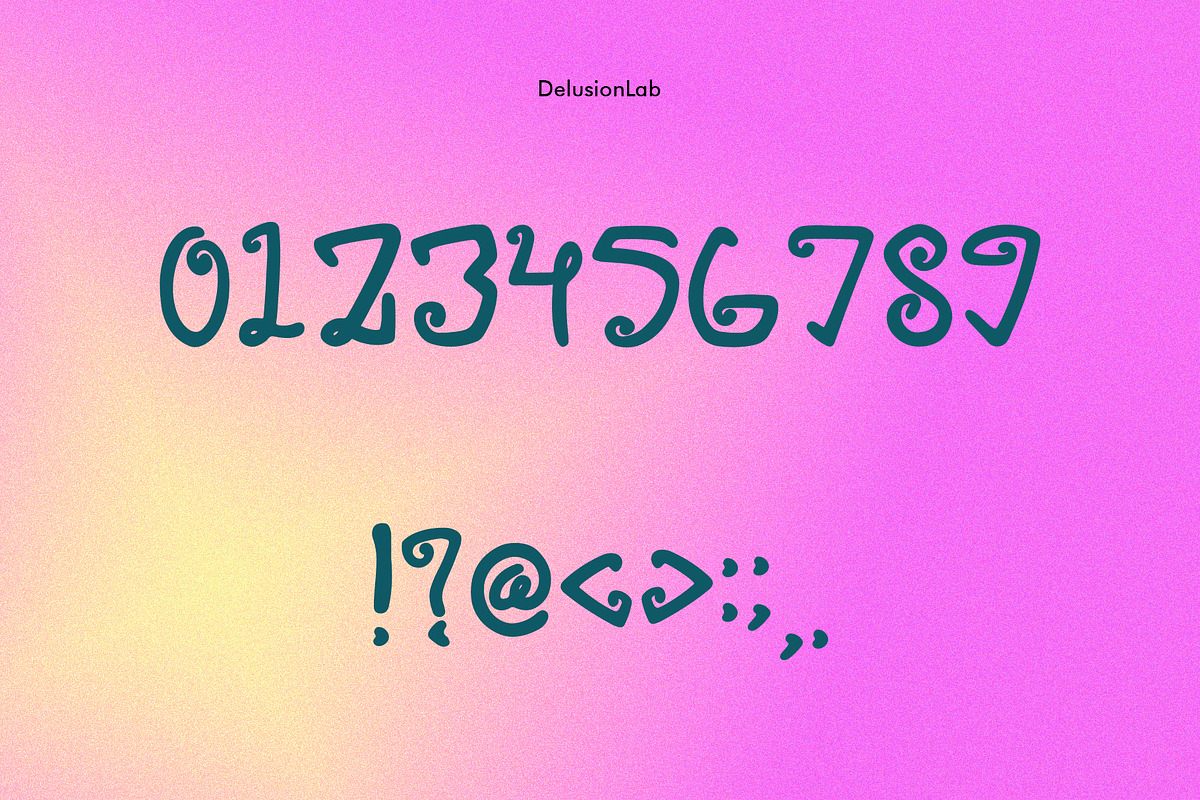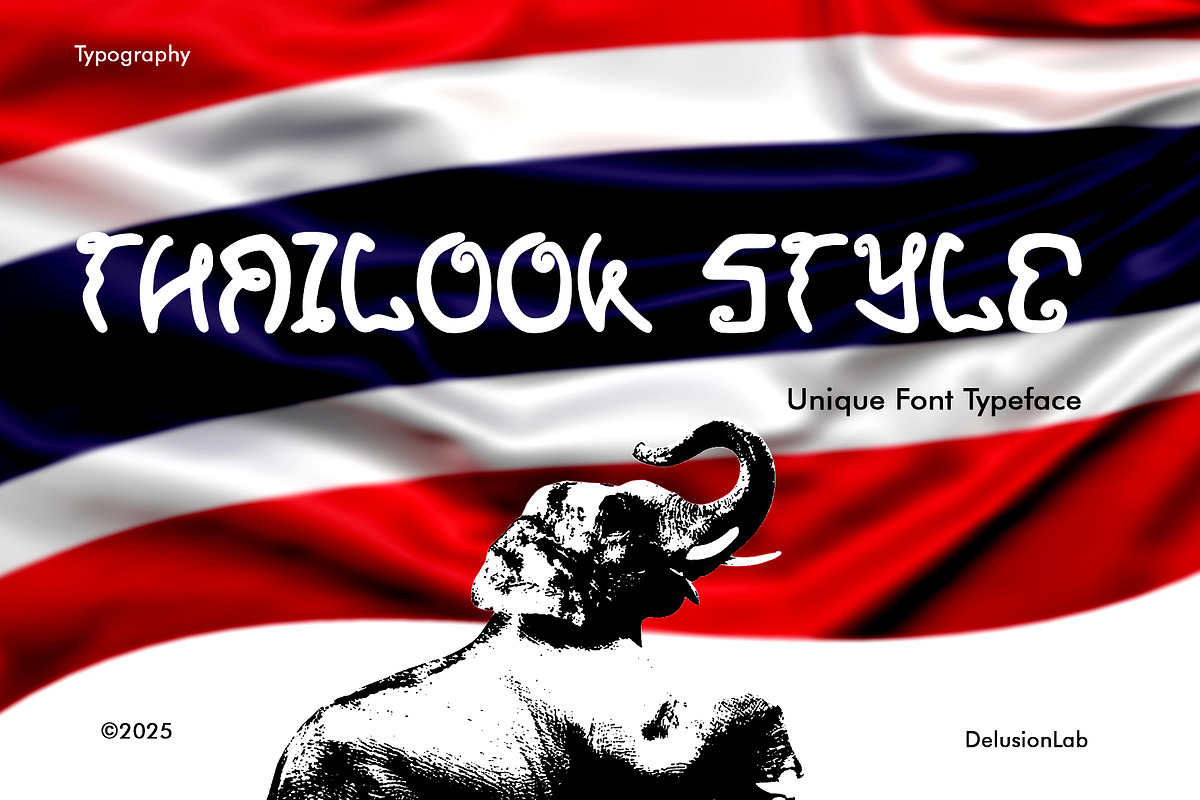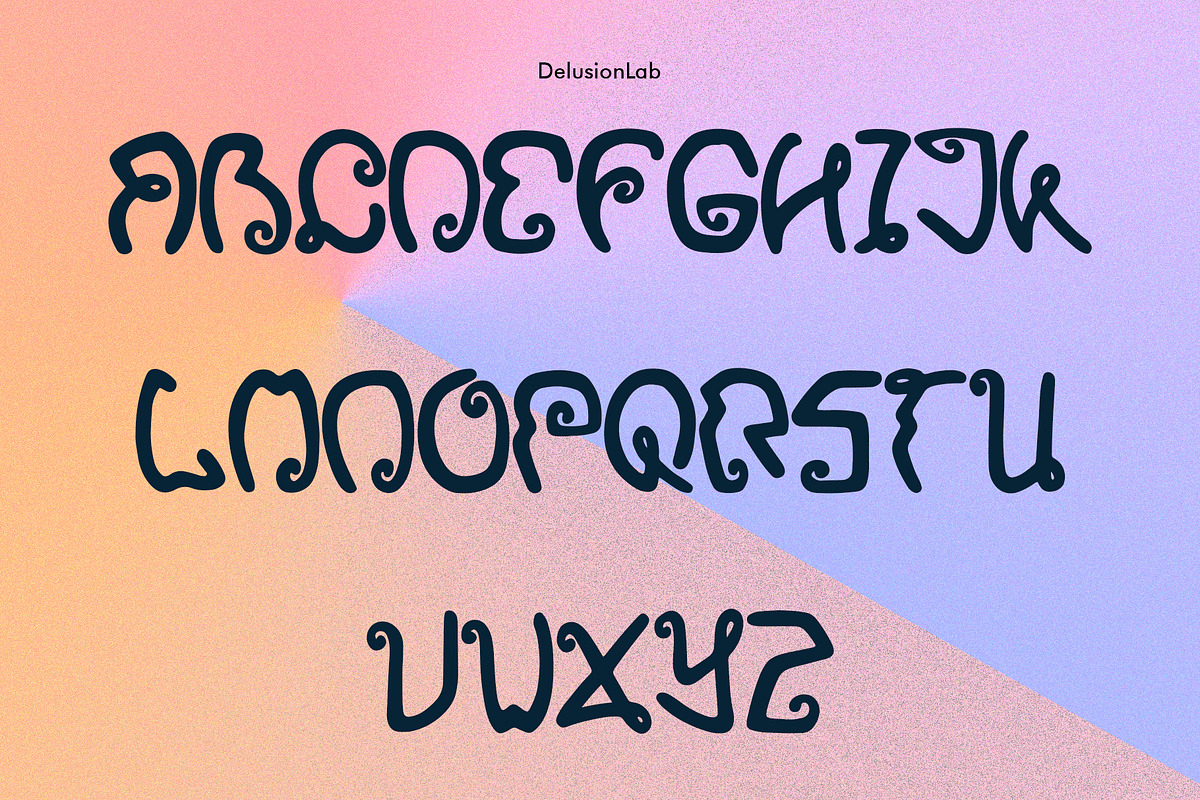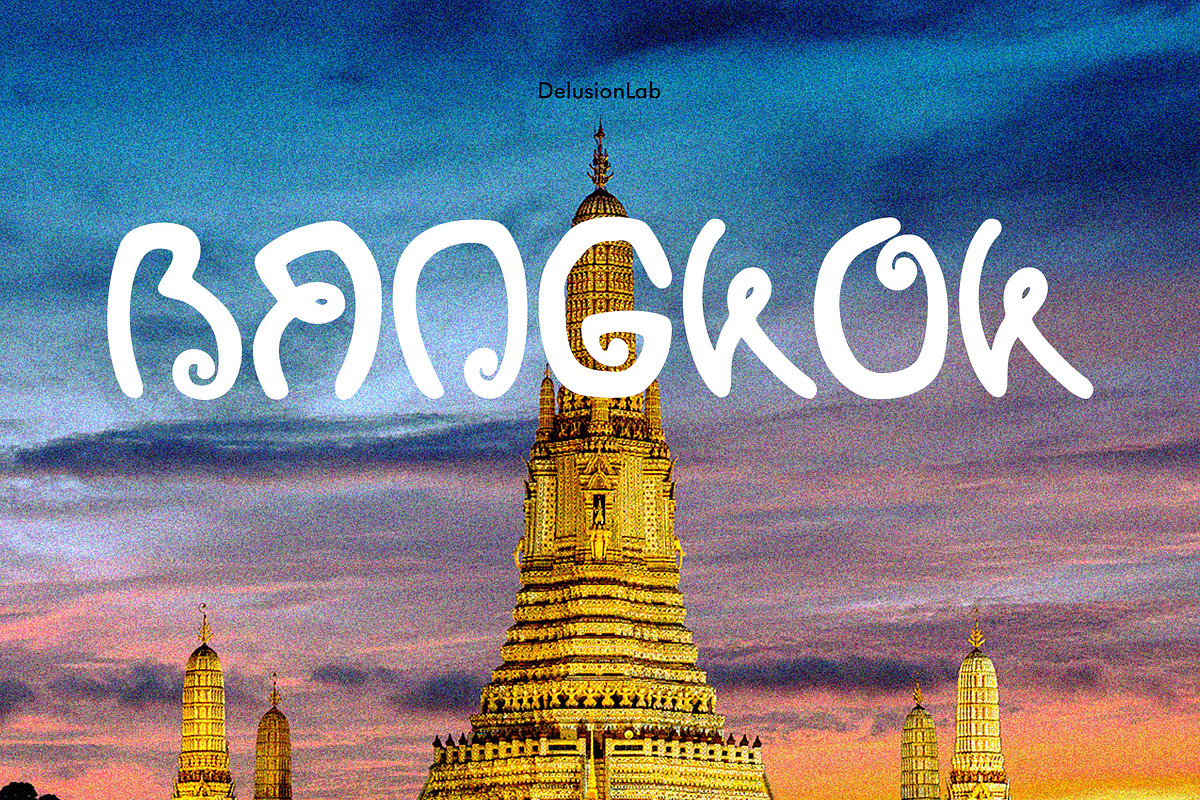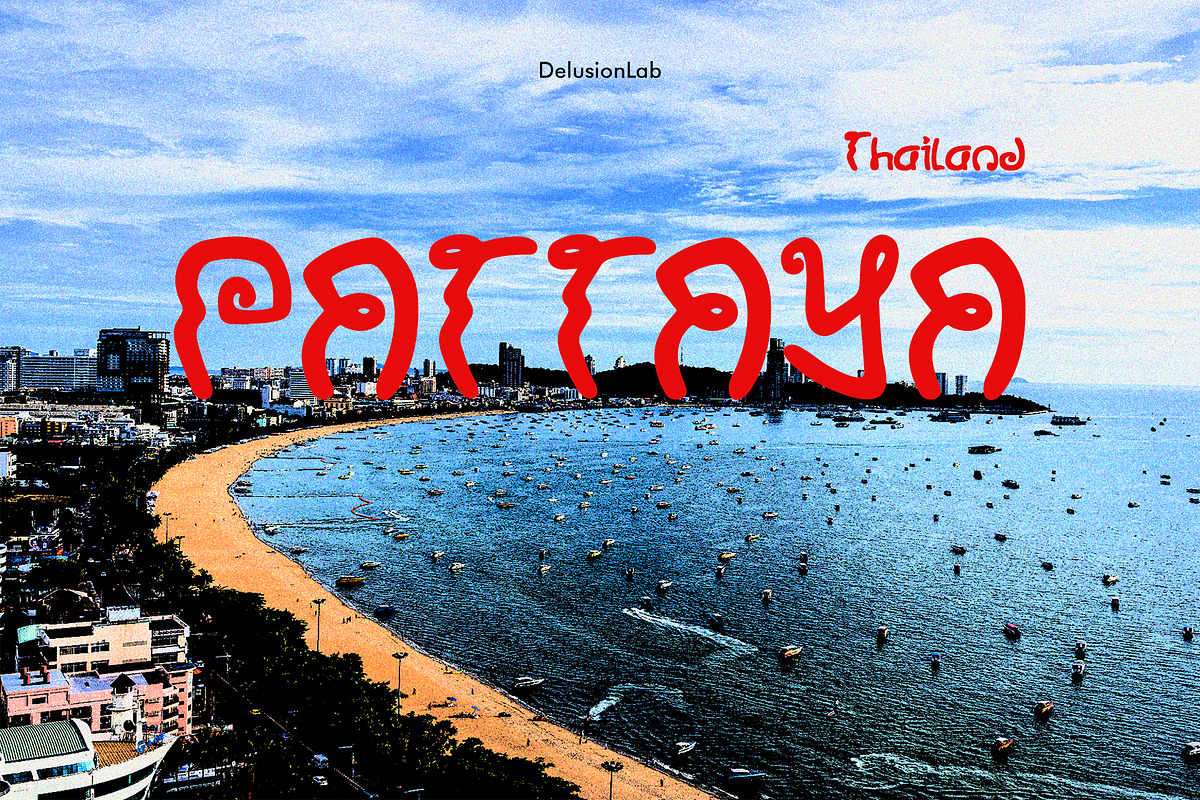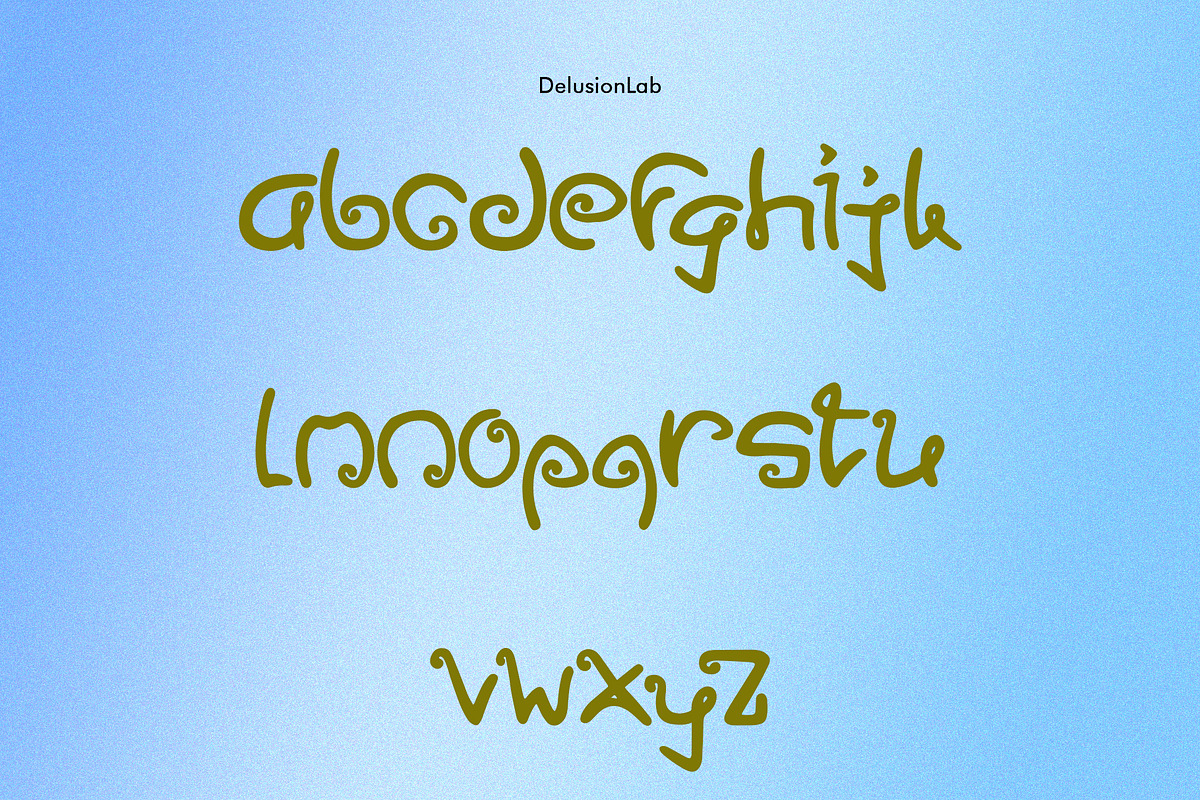
Thailook Style Font
Glassure is an experimental typeface that is inspired by Thai accent in Thai (อักษรไทย). This script is an abugida, not a true alphabet, used to write Thai.
Uppercase, Lowercase, Numbering